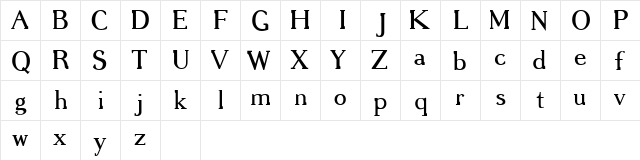
Gregoire Regular
Design Context for Gregoire Typeface
Gregoire offers clean, dependable letterforms without strong stylistic allegiance, making it a practical choice for designers who need flexibility.
Pro Tip: Use Gregoire in both headline and body roles to test its range before committing to a single application.